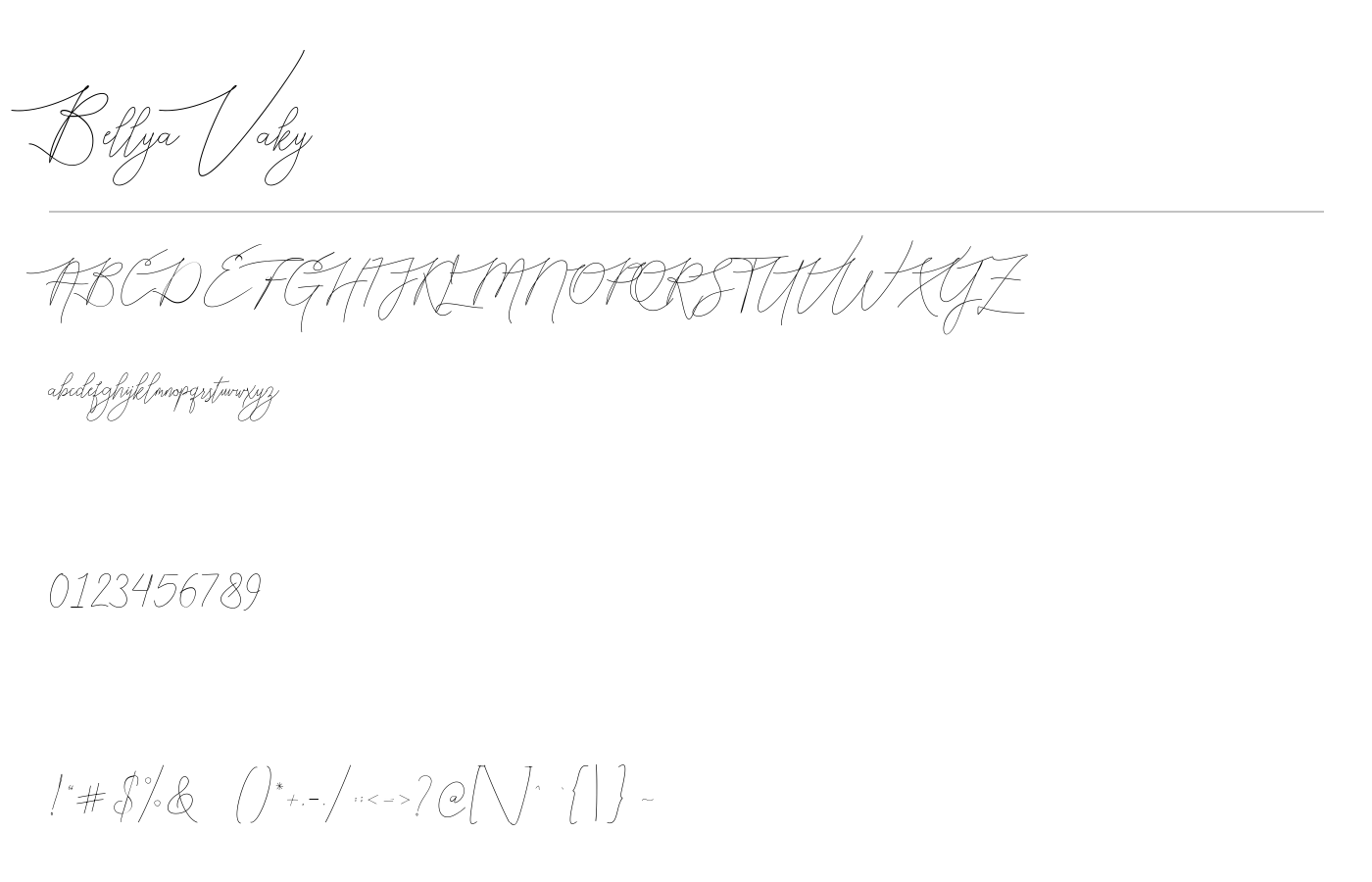
Bellya Vaky is an elegant, delicate script font characterized by its extremely thin strokes and graceful, flowing lines. It exudes a sophisticated and artistic personality, perfect for upscale branding, wedding invitations, and ornamental design where a refined, hand-lettered feel is desired. Its light, airy style works best in large display uses rather than body text, adding a touch of luxurious charm and creativity.
Bellya Vaky Font
About Bellya Vaky Font
| Font family | Bellya Vaky Font |
| Designer | Rifan Asri |